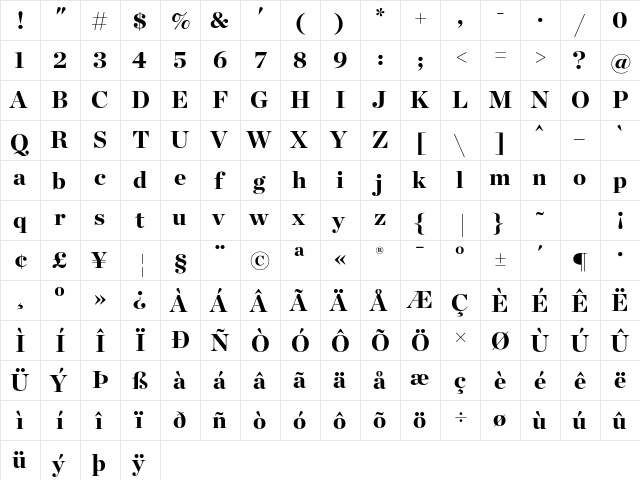
Chronicle Display Black
| Foundry | Hoefler & Frere-Jones |
| Designer | Hoefler & Frere-Jones |
Design Context for Chronicle Display Typeface
Chronicle Display brings ornamental detail and strong personality to headlines and identities, where visual impact matters more than quiet functionality.
Font Pairing: Pair with a clean neutral sans-serif for body copy to let Chronicle Display's character lead without overwhelming the composition.
Pro Tip: Use Chronicle Display exclusively at display sizes — it was designed to be seen, not read at length. Let a neutral companion handle body copy.